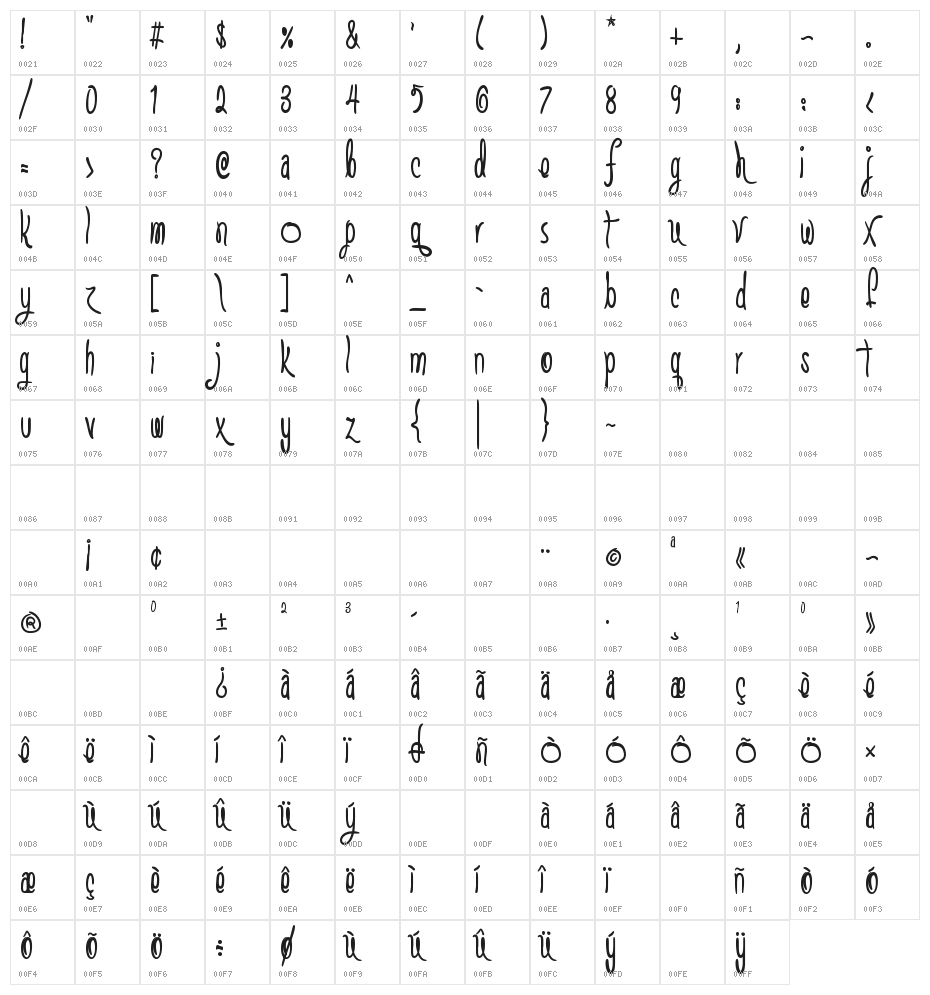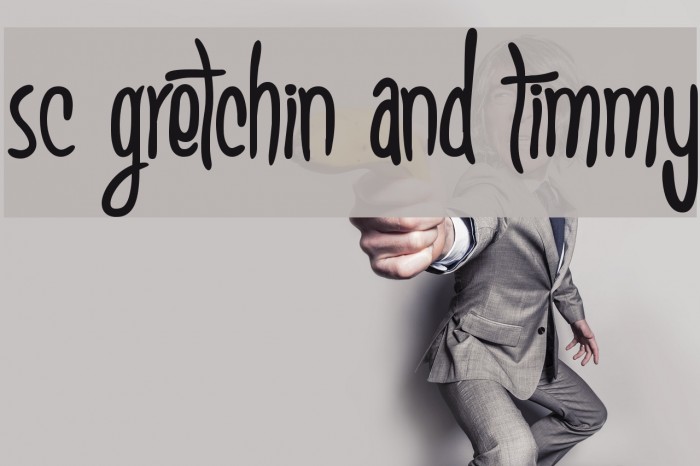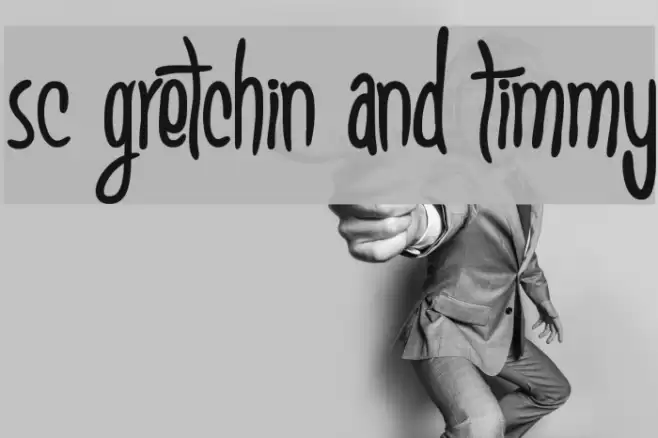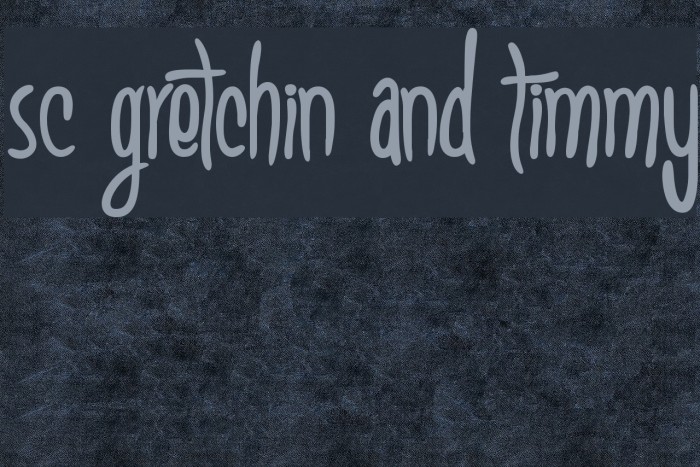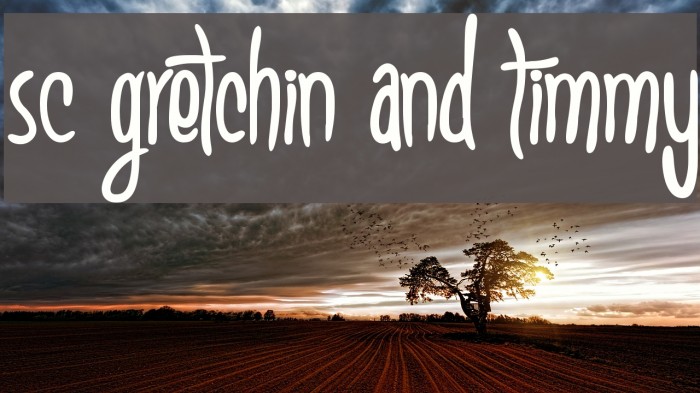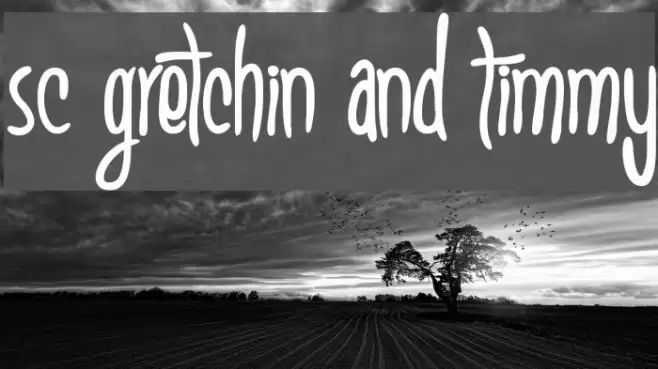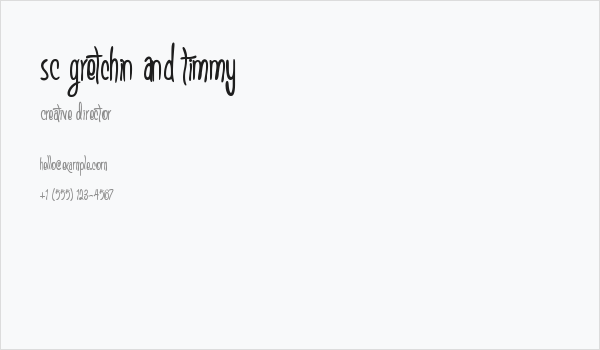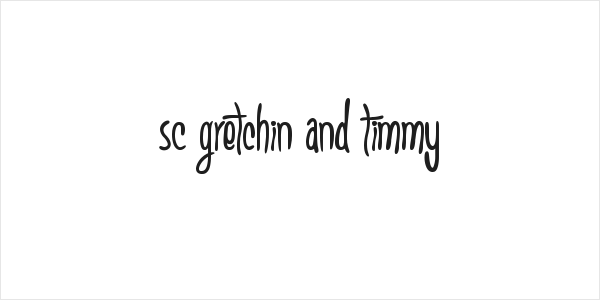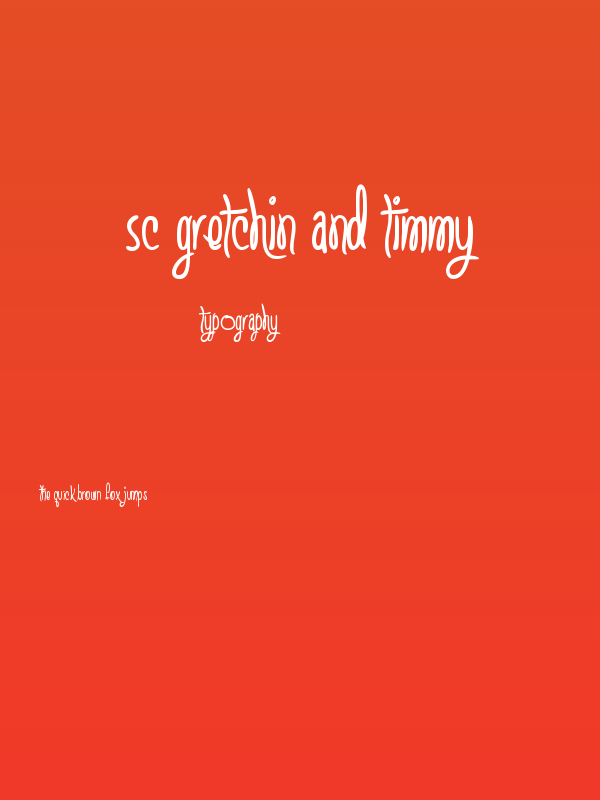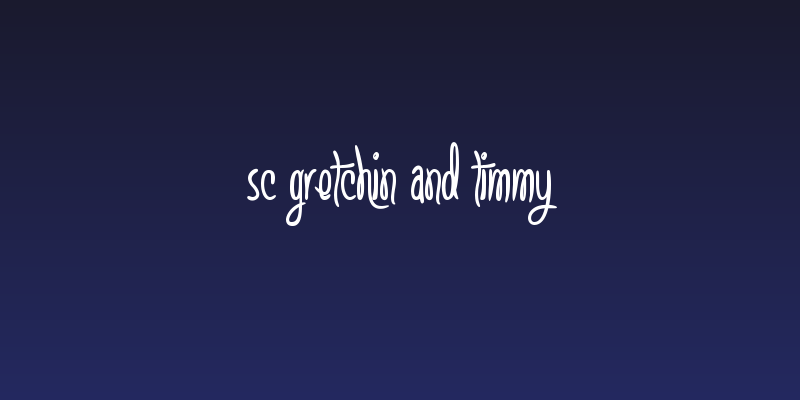
SC Gretchin And Timmy Font
SC Gretchin And Timmy Description
This font features a playful and whimsical style with elongated and slightly irregular letterforms. The characters have a hand-drawn appearance, giving them a unique and informal look. The strokes are consistent in thickness, contributing to a cohesive design. The font includes both uppercase and lowercase letters, numerals, and a variety of special characters. Its quirky nature makes it suitable for creative and fun projects, adding a touch of personality and charm.
| Overall Style | Whimsical |
| Use Case | Logos, Posters, Creative projects |
| Proposed Projects | Ideal for children's books, greeting cards, playful branding, and creative posters. |